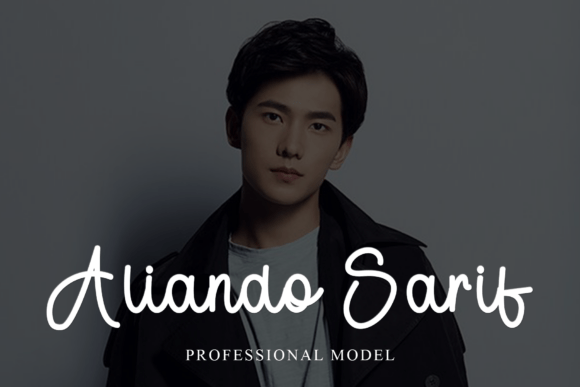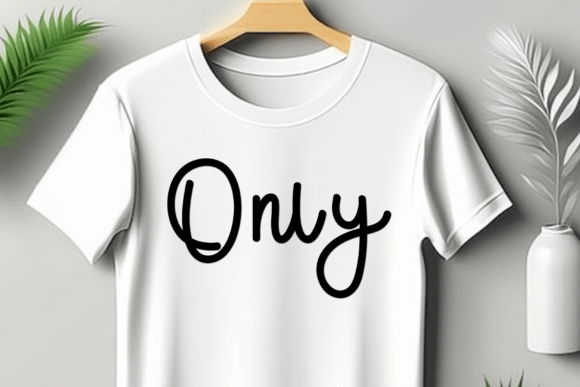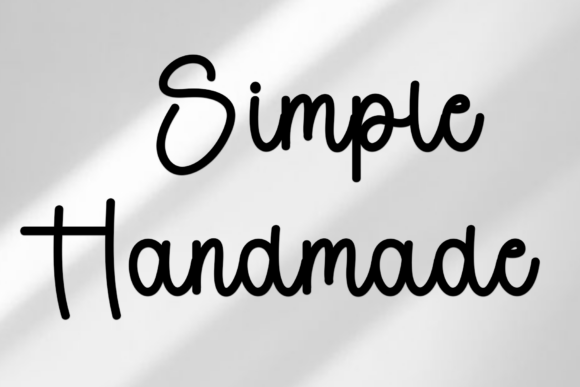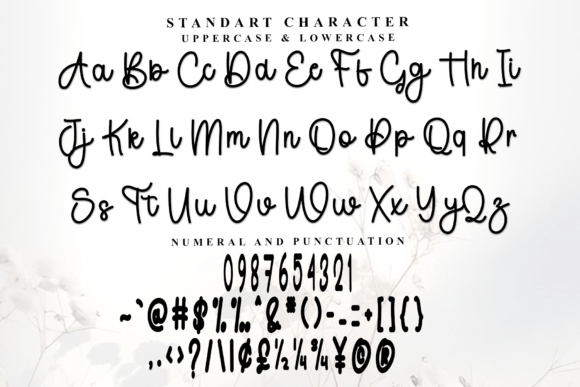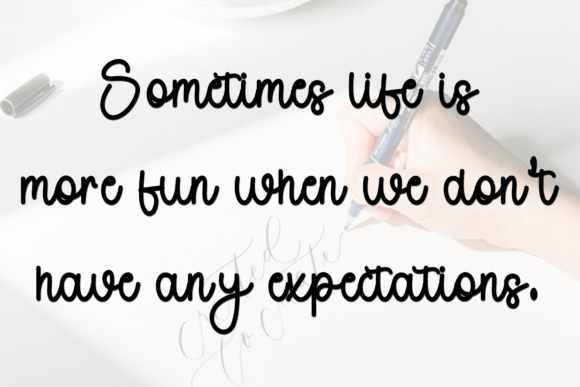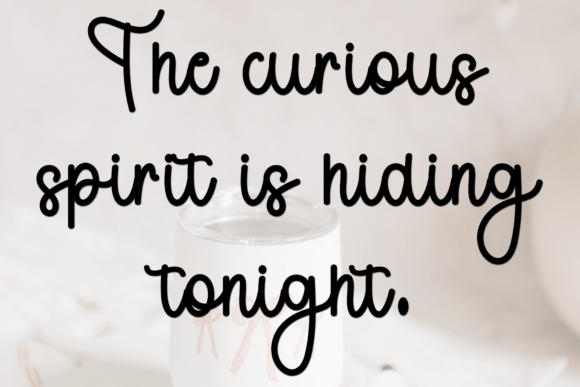
Introduction to Golden Butter Font
Have you ever stumbled upon a font that instantly sparks a creative idea? For many designers, it’s that ‘aha’ moment when the perfect typography finally comes along. That’s exactly what happens when you discover the Golden Butter Font – a stunning, high-quality font that brings a touch of elegance to any design project.
With its soft, unique strokes and distinctive character, the Golden Butter Font is a valuable resource for designers looking to add a special touch to their creative projects. Whether you’re working on a design concept, crafting a handmade card, or creating a digital artwork, this versatile font is sure to impress. And the best part? It’s compatible with various applications, including Windows and open-source platforms, making it a seamless addition to your design arsenal.
Key Features of Golden Butter Font
• High-quality, elegant script font designed for creative projects
• Includes 5 different font styles (Regular, Italic, Bold, Bold Italic, and Outline) for added versatility
• Designed with a unique, hand-painted aesthetic that adds a touch of sophistication to any design
Honest Review: Golden Butter Font
I recently stumbled upon the Golden Butter Font, and I must say it’s been a game-changer for my creative projects. This font is perfect for adding a touch of elegance and sophistication to any design.
• ✨ High-quality design: The Golden Butter Font is meticulously crafted with intricate details, making it perfect for those who want a premium look.
• ✨ Versatility: This font is suitable for a wide range of design applications, from business cards to magazines.
While the Golden Butter Font is an excellent addition to any design resource, there are a few limitations to consider:
• ⚠️ Limited character set: The font only comes with a limited character set, which may not be ideal for designers who need to work with complex text.
• ⚠️ Not suitable for transparent backgrounds: The font’s design may not work well with transparent backgrounds, which could limit its use in certain design applications.
Overall, the Golden Butter Font is a high-quality design resource that’s perfect for designers who want to add a touch of sophistication to their creative projects. While it has some limitations, it’s still a valuable addition to any design library.
The Golden Butter Font is commonly used in branding, advertising, and marketing materials. Its transparent background and high-quality design make it perfect for layering over images or other design elements. The Golden Butter Font is also a popular choice for social media graphics, flyers, and brochures.